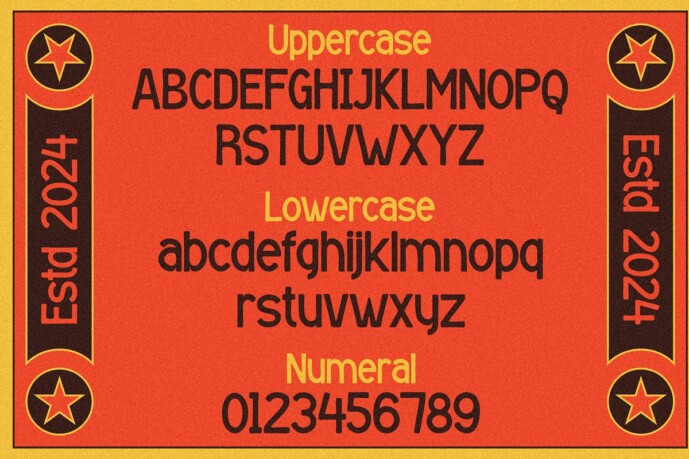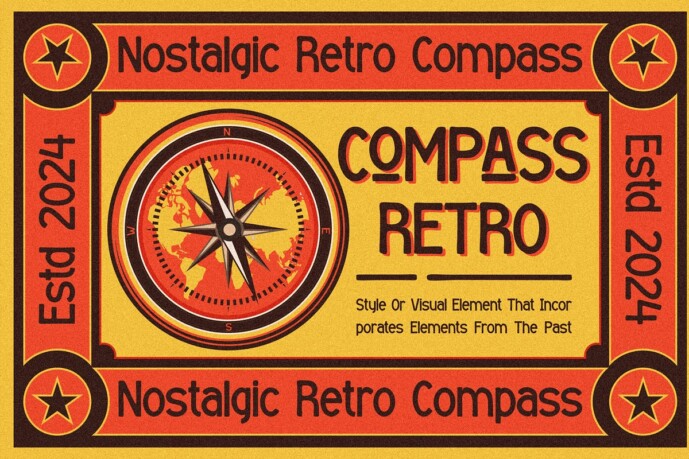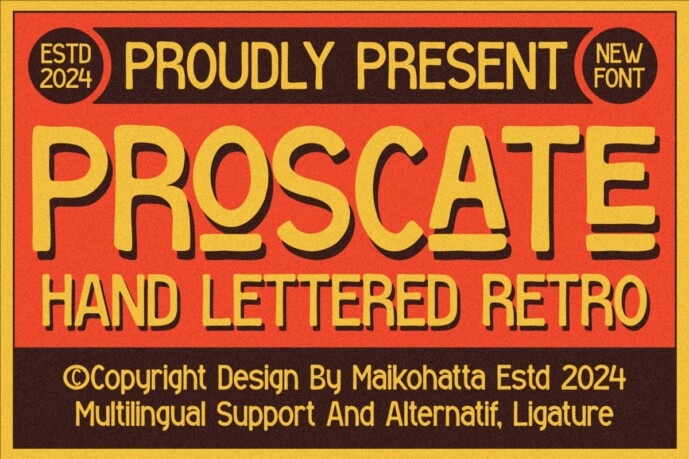
Proscate Font
Designer: maikohatta
Proscate Font – Hand Lettered Retro.This font is characterized by reflecting joy, cheerfulness and a light atmosphere with a handwritten style often found in comics or cartoons. This font is perfect for projects that want to highlight elements of playfulness and fun, such as poster designs, invitation cards, comics, or promotional materials aimed at a younger audience or those looking for a fun feel.